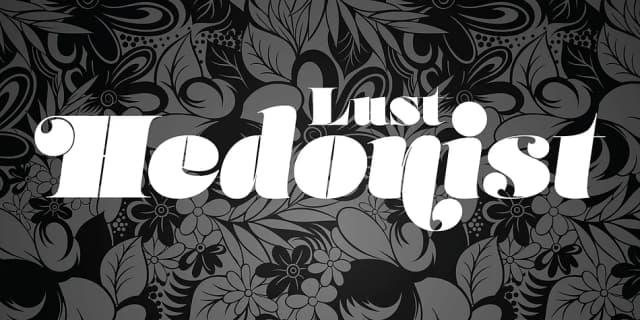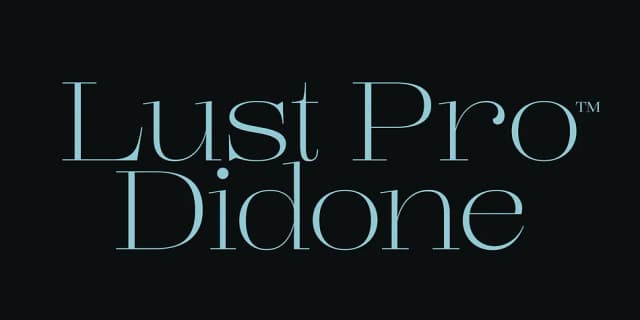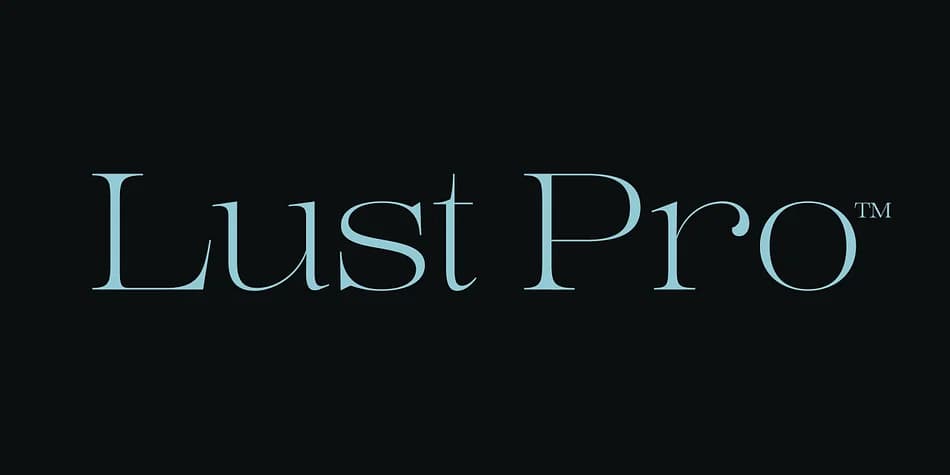
There's a theatrical confidence to this typeface that pulls your attention in immediately. Lust Pro, designed by Positype, takes inspiration from 1970s sensibility and filters it through a contemporary lens. The letterforms earn their boldness through extreme contrasts in line weight, flowing between delicate curves and weighty strokes with intentional restraint. Those curves especially catch your eye first, and they carry something distinctly sensual and human about them.
You'll reach for Lust Pro when designing luxury perfume packaging, editorial spreads in high-end magazines, sophisticated wedding invitation suites, or boutique product labels that need to feel premium. The typeface's dramatic personality works across scales, equally striking when set large as headlines and when layered into editorial layouts alongside photography. Coming with three widths, five weights, and matching italics in both Regular and Didone variants, the complete family spans 60 fonts total. That gives you real flexibility in creating typographic depth without hunting for complementary faces, which matters when every detail shapes how your designs land.
Lust Pro Font is a decorative font that shines as a display or heading face. Pair it with a clean sans-serif or serif font for body text β the contrast creates a clear hierarchy while the two styles stay balanced and easy to read.